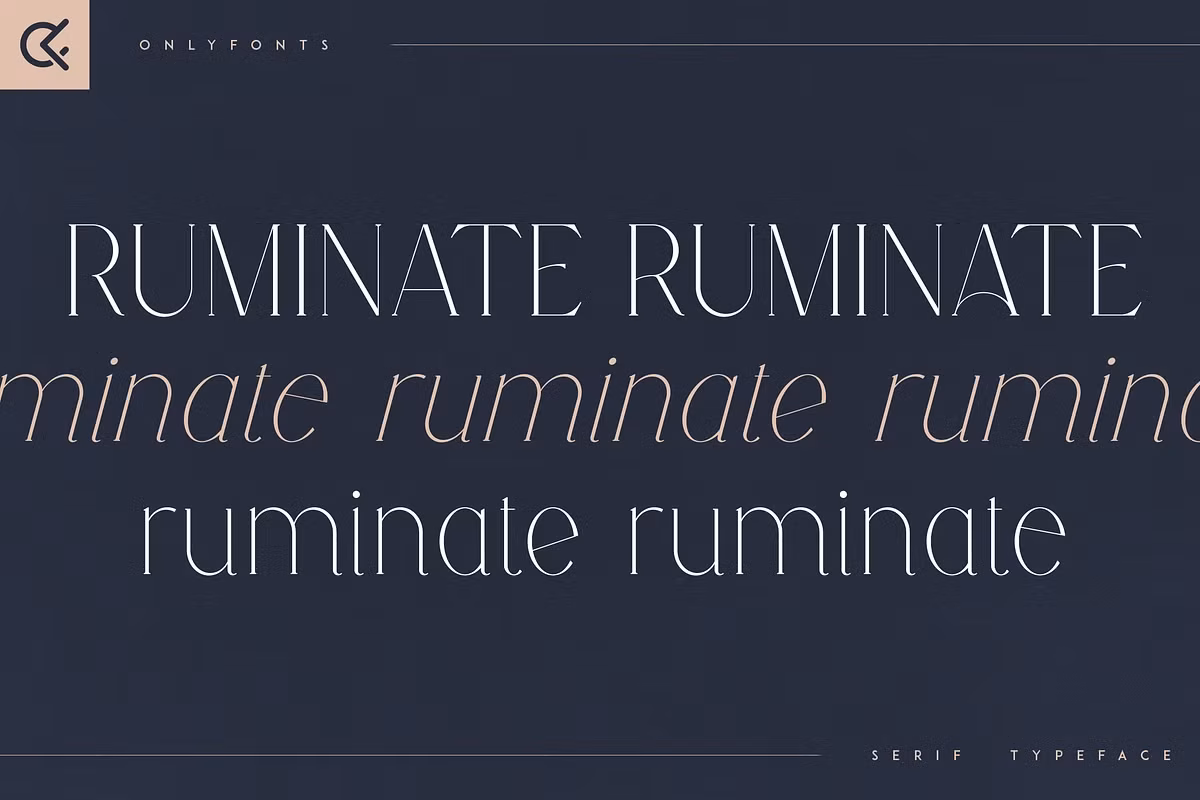
Ruminate - Serif Typeface Free Download is a thoughtful and refined font that blends classic serif elegance with a contemporary, editorial edge. Designed with beautifully sculpted curves and sharp serifs, Ruminate is perfect for book covers, branding, magazine layouts, packaging, and high-end web design. It brings a literary sophistication and quiet confidence to any visual project.
Ideal for both headlines and body text, this typeface offers excellent readability while maintaining a distinctive, artistic style. Ruminate invites the reader in with its balanced proportions and timeless beauty, making it a favorite for designers looking to create meaningful, visually rich content.